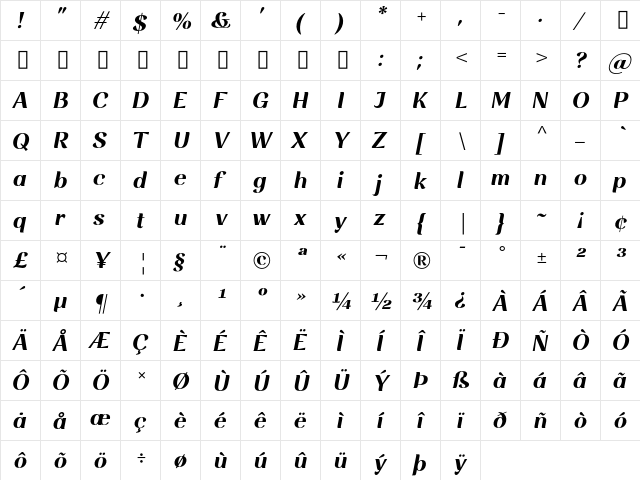
Rossanova Personal Use Ita Bold Italic Font Preview
Design Context for Rossanova Personal Use Ita Typeface
Rossanova Personal Use Ita is a composed and adaptable typeface that performs quietly and consistently across a wide range of design contexts. The dynamic lean of this cut emphasises speed and emphasis in any layout. Its bold stroke weight gives it real presence on the page.